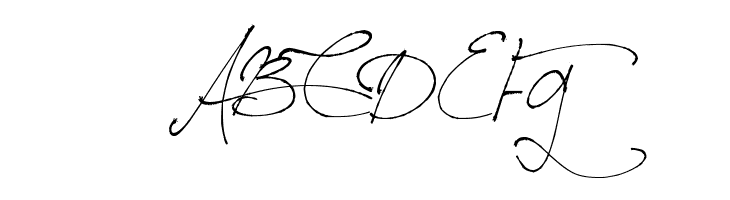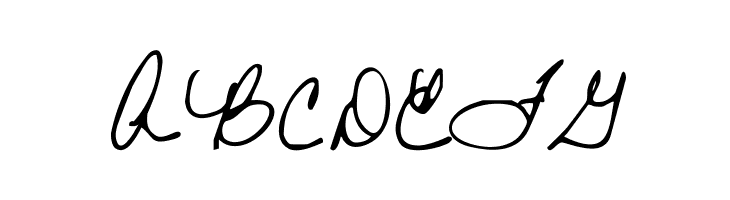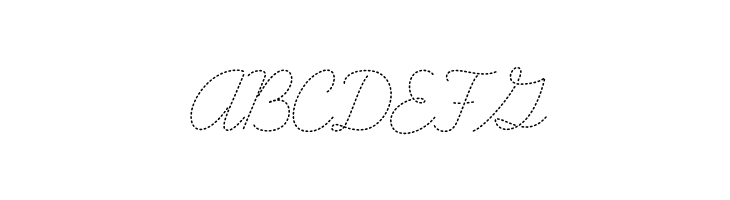
An elegant, antique-style cursive font with intricate loops and swirls.
A casual, handwritten cursive font with fluid strokes and dynamic character.
A playful dashed cursive font ideal for handwriting education.
A playful, casual script font with fluid, connected strokes and a handwritten feel.